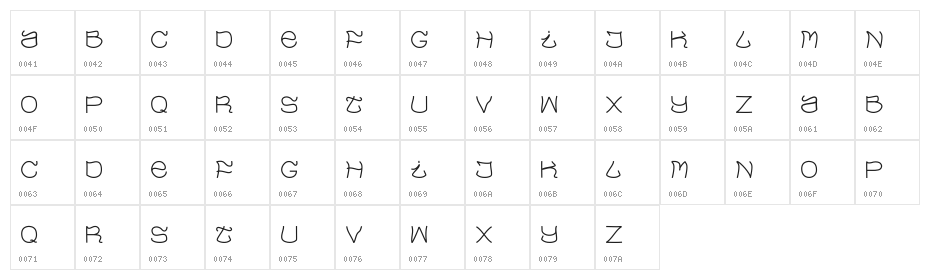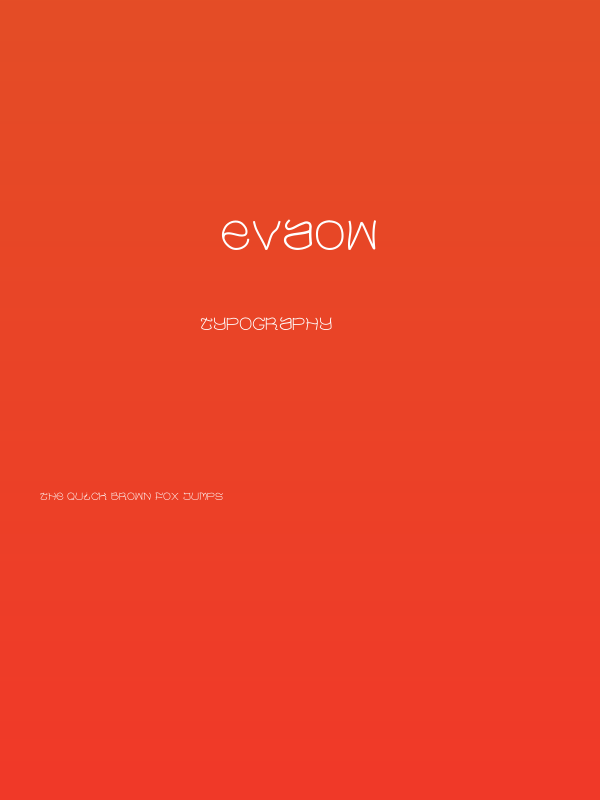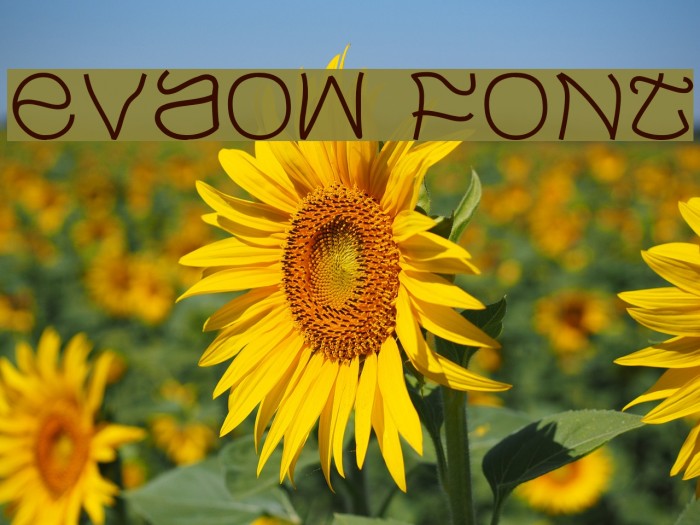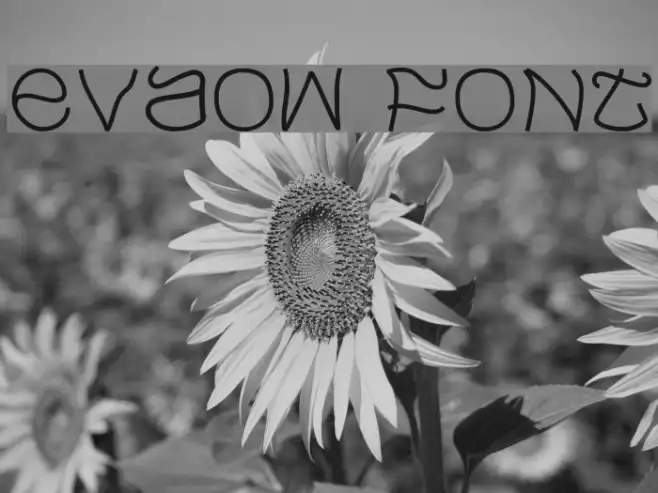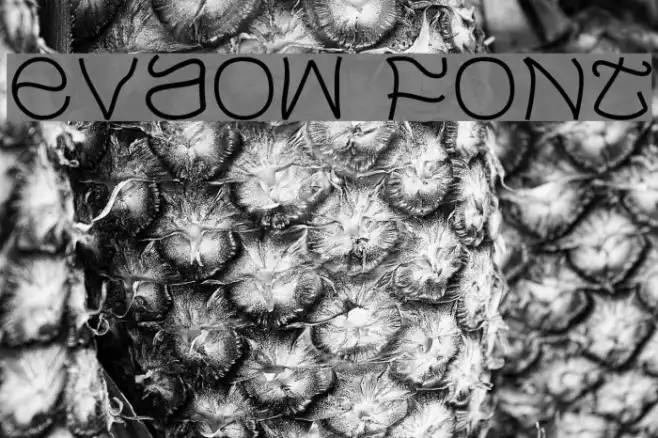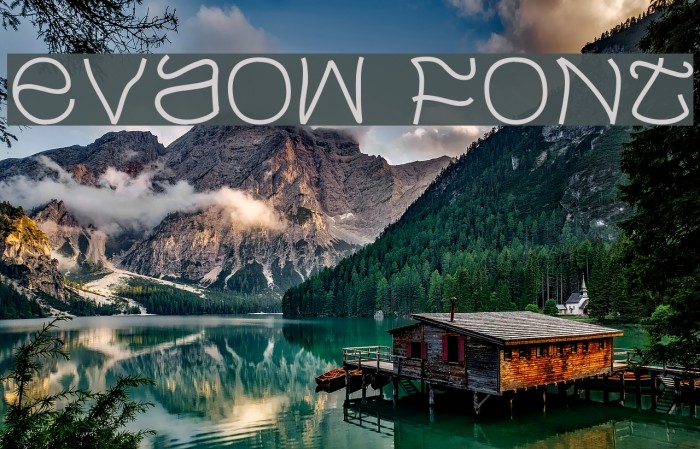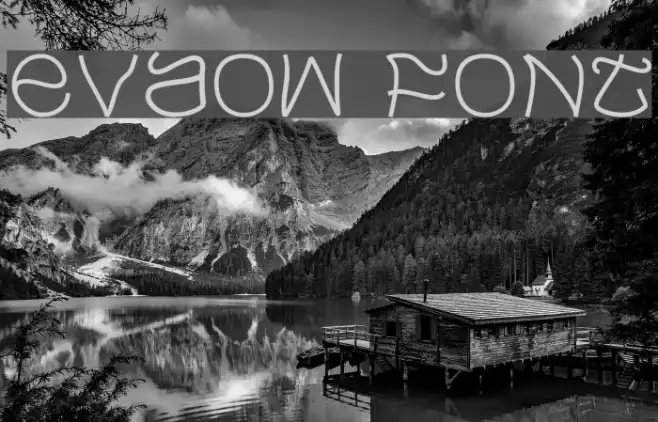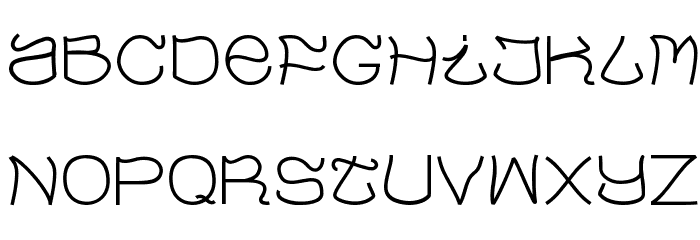
Evaow Font
Evaow Description
This font features a unique and artistic design with a playful and whimsical style. The characters are crafted with a combination of curves and sharp angles, giving them a dynamic and lively appearance. The uppercase letters have a distinct flair, with some strokes extending beyond the baseline, adding to the font's quirky charm. The lowercase letters maintain a consistent style, complementing the uppercase with their own set of creative twists. The numbers are bold and easily distinguishable, while the special characters are designed to match the overall aesthetic, making this font suitable for creative and expressive projects.
| Overall Style | Whimsical and Artistic |
| Proposed Projects | Ideal for creative projects such as children's books, playful branding, artistic posters, and unique invitations. |